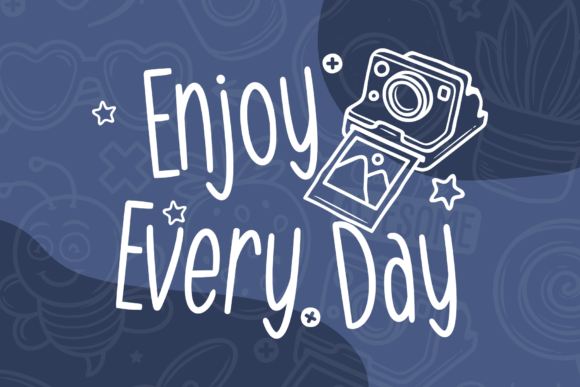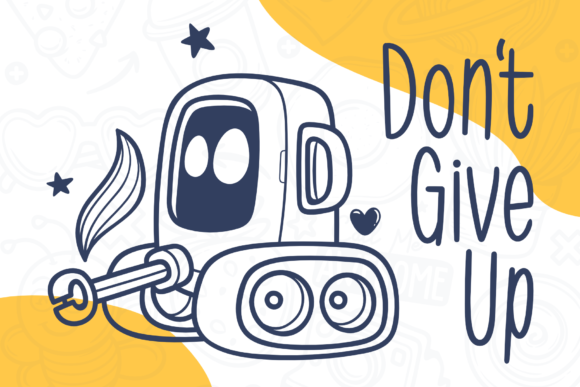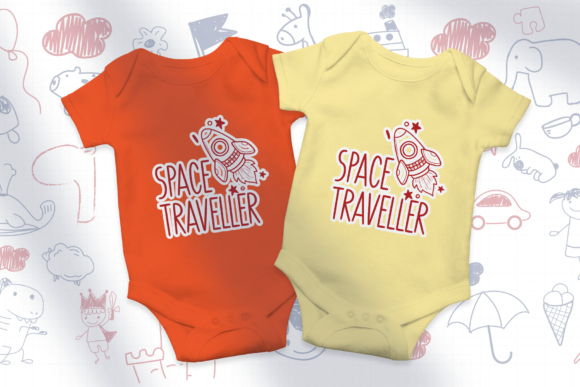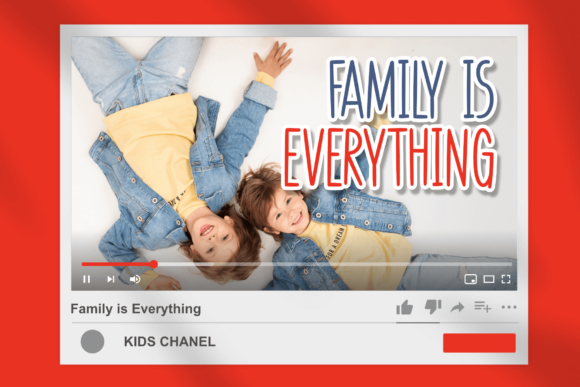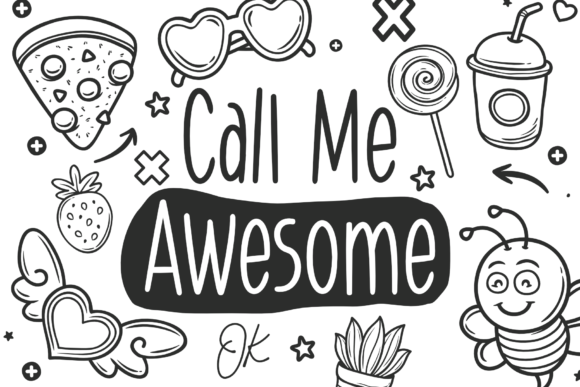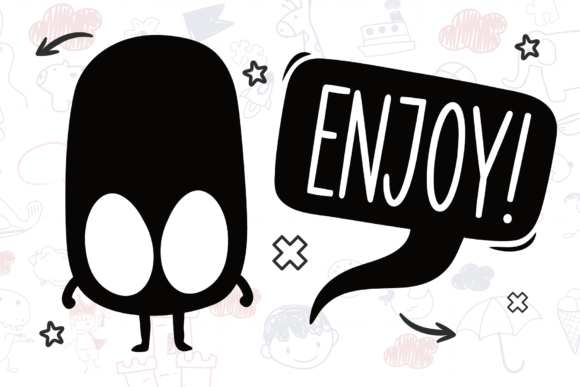
Introduction to Little Sooner Font
Do you remember the moment when you first started brainstorming ideas for your next creative project? The excitement, the anticipation, the endless possibilities? As designers, we’ve all been there. And what’s often at the core of these projects is a well-chosen font, capable of bringing our vision to life. If you’re looking for a font that exudes warmth and charm, you’re in the right place. In this article, we’ll dive into the world of the Little Sooner Font, a delightful handwritten font designed specifically for children.
With its full-color style and transparent background, the Little Sooner Font is a valuable resource for any designer looking to add a touch of whimsy to their designs. Whether you’re working on a children’s book, a nursery decor project, or a family-friendly website, this font is sure to elevate the quality of your work. And the best part? It’s available for free download, making it an accessible design resource for creatives of all levels.
Key Features of Little Sooner Font
- High-quality design resource perfect for creative projects
- Comes with a transparent background for seamless integration
- Features a unique, hand-drawn style with intricate details and subtle nuances
- Supports a wide range of languages, making it a versatile design resource
Honest Review: Little Sooner Font
I recently came across the Little Sooner Font, and I’m excited to share my thoughts on this design resource. As a designer, I’m always on the lookout for high-quality fonts that can elevate my creative projects. And, I must say, the Little Sooner Font delivers.
Here are some things that work well with this font:
- ✨ High-quality design: The font is well-crafted, with clear and precise lines that make it perfect for various design applications.
- ✨ Transparent background: This feature is a game-changer for designers who want to create stunning designs with ease.
- ✨ Versatile: The font is suitable for a wide range of creative projects, from logos to brochures.
- ⚠️ Limited character set: The font’s character set is relatively small, which might be a concern for designers who need to work with a wide range of characters.
- ⚠️ Not ideal for complex typography: While the font looks great on its own, it might not be the best choice for complex typography projects that require multiple font styles.
Overall, the Little Sooner Font is a solid design resource that I would recommend to designers who are looking for a high-quality font for their creative projects. The free download is a bonus, making it an even more attractive option.
Using Little Sooner Font in Creative Projects
You can use the Little Sooner Font in various creative projects, including graphic design, digital art, and even print materials. To get the most out of it, experiment with different font sizes, colors, and combinations to create visually appealing designs.
The Little Sooner Font is ideal for various applications, including:
Alternatives to Little Sooner Font
Great Vibes Font is a high-quality, elegant script font ideal for creative projects requiring a touch of sophistication. Its transparent background and delicate strokes make it perfect for designing wedding invitations, quotes, or any design needing a vintage feel.
Compared to Little Sooner Font, Great Vibes Font has a more refined and polished look, making it suitable for formal events or high-end designs. However, it lacks the playful feel of Little Sooner Font, making it less suitable for casual or humorous projects.
Dancing Script Font is a fun and energetic font perfect for creative projects needing a lively touch. Its high-quality design and transparent background make it ideal for designing posters, social media graphics, or any design requiring a dynamic feel.
Can I use the Little Sooner Font with a transparent background?
Yes, the Little Sooner Font supports transparency, allowing you to use it with a transparent background. To achieve this, you’ll need to use a design software that supports font transparency, such as Adobe Illustrator or Photoshop. This feature makes the Little Sooner Font an excellent choice for high-quality design projects that require a professional touch.